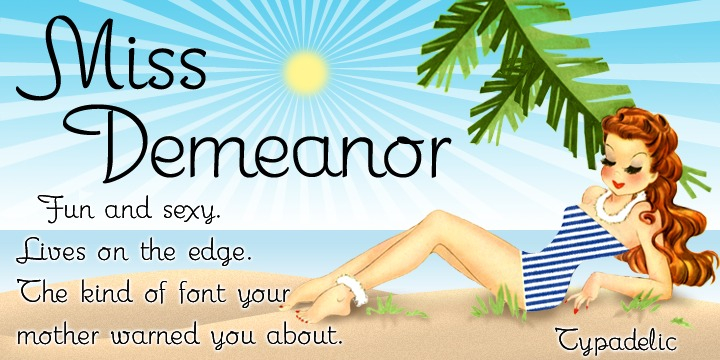
Miss Demeanor
Miss Demeanor is a script font published by Typadelic.
Miss Demeanor has a tendency to create her own rules due to her free-spirited nature.
Miss Demeanor has a tendency to create her own rules due to her free-spirited nature. She conforms to every day typographic expectations but she wouldn’t like you to think so. She has unusual yet casual and eye catching shapes and makes the best of any situation. I hope you enjoy her pretty style!
My inspiration for Miss Demeanor came from a specimen sheet of an american type style from the early 1930’s.